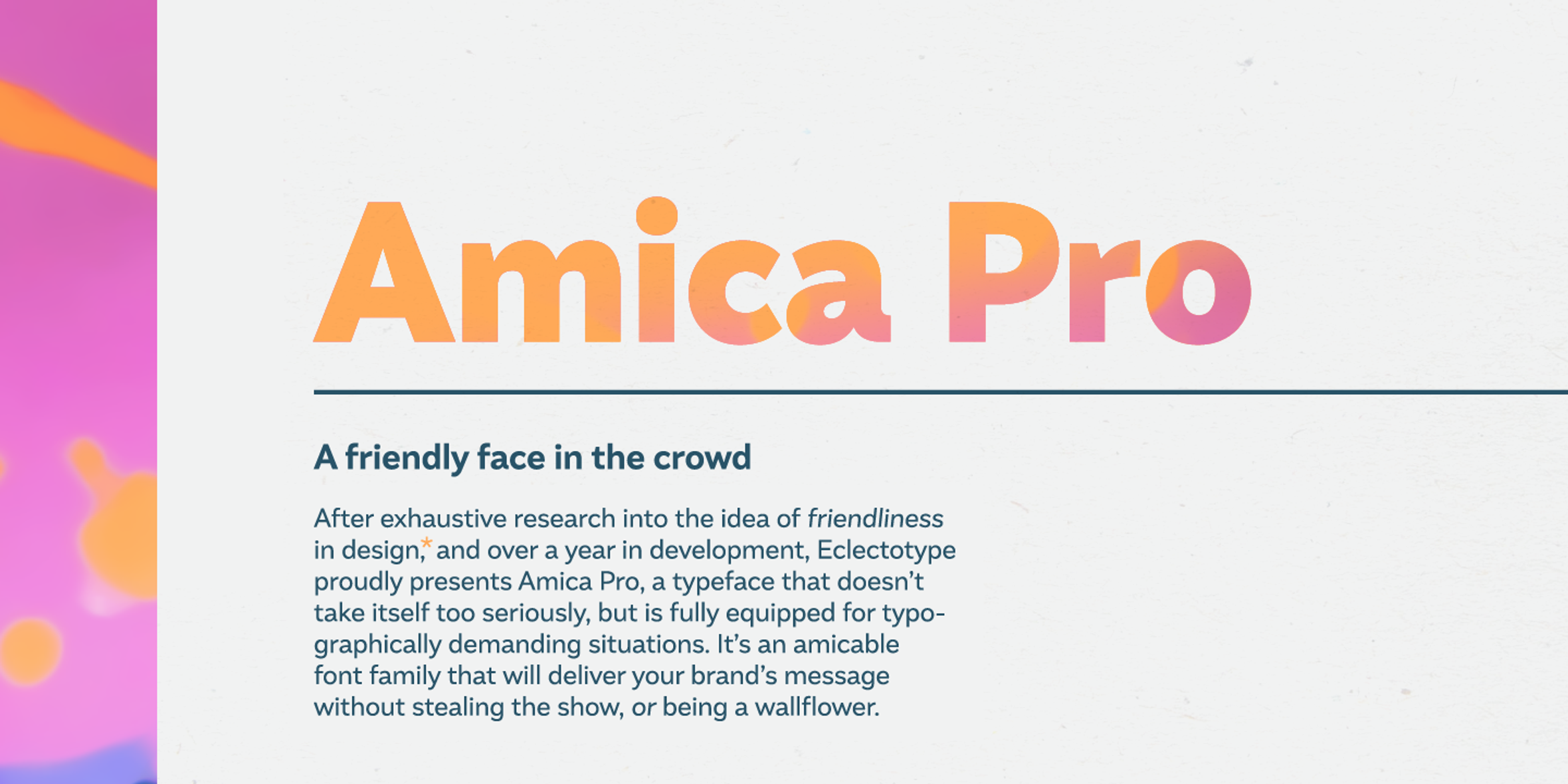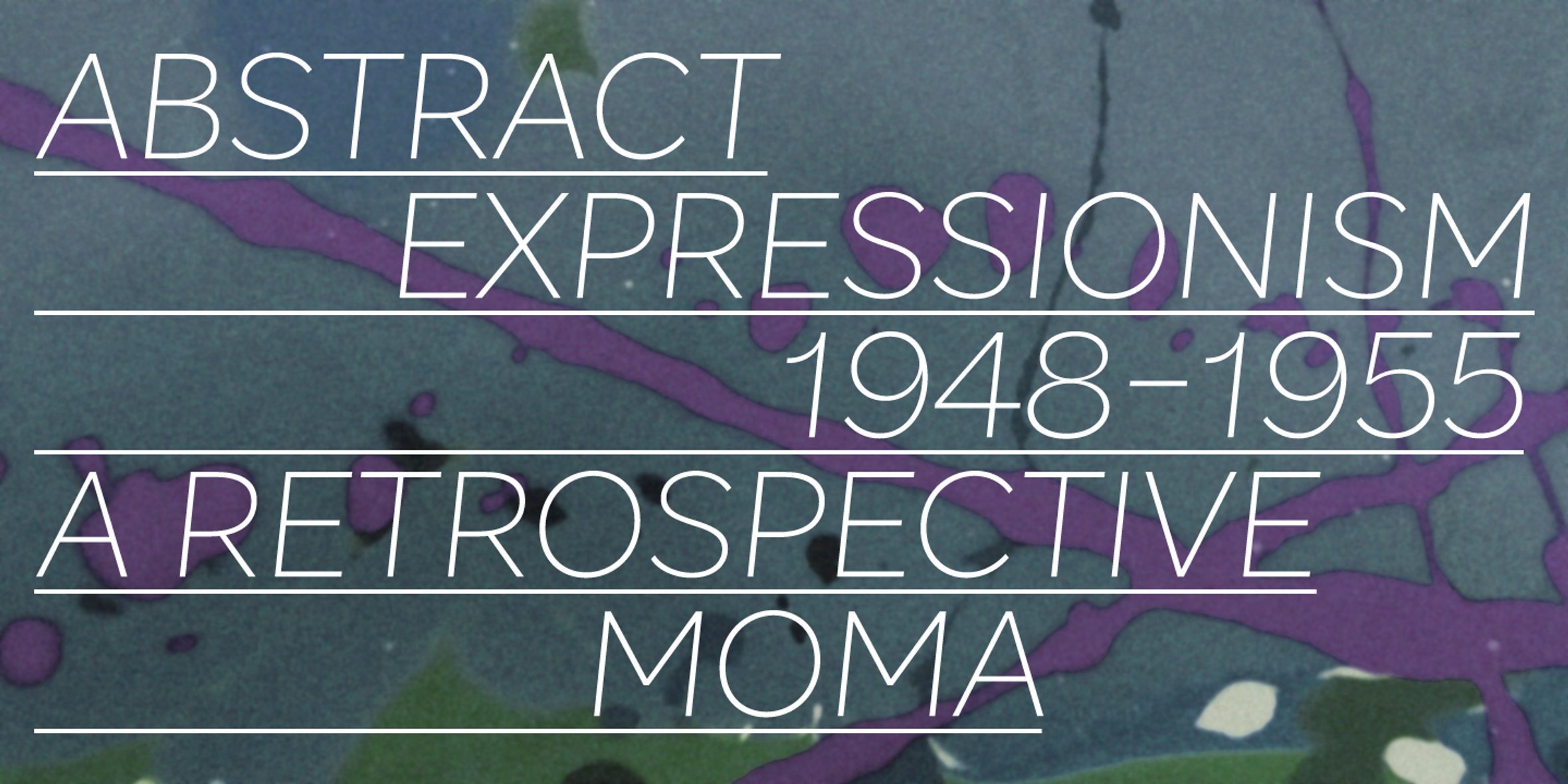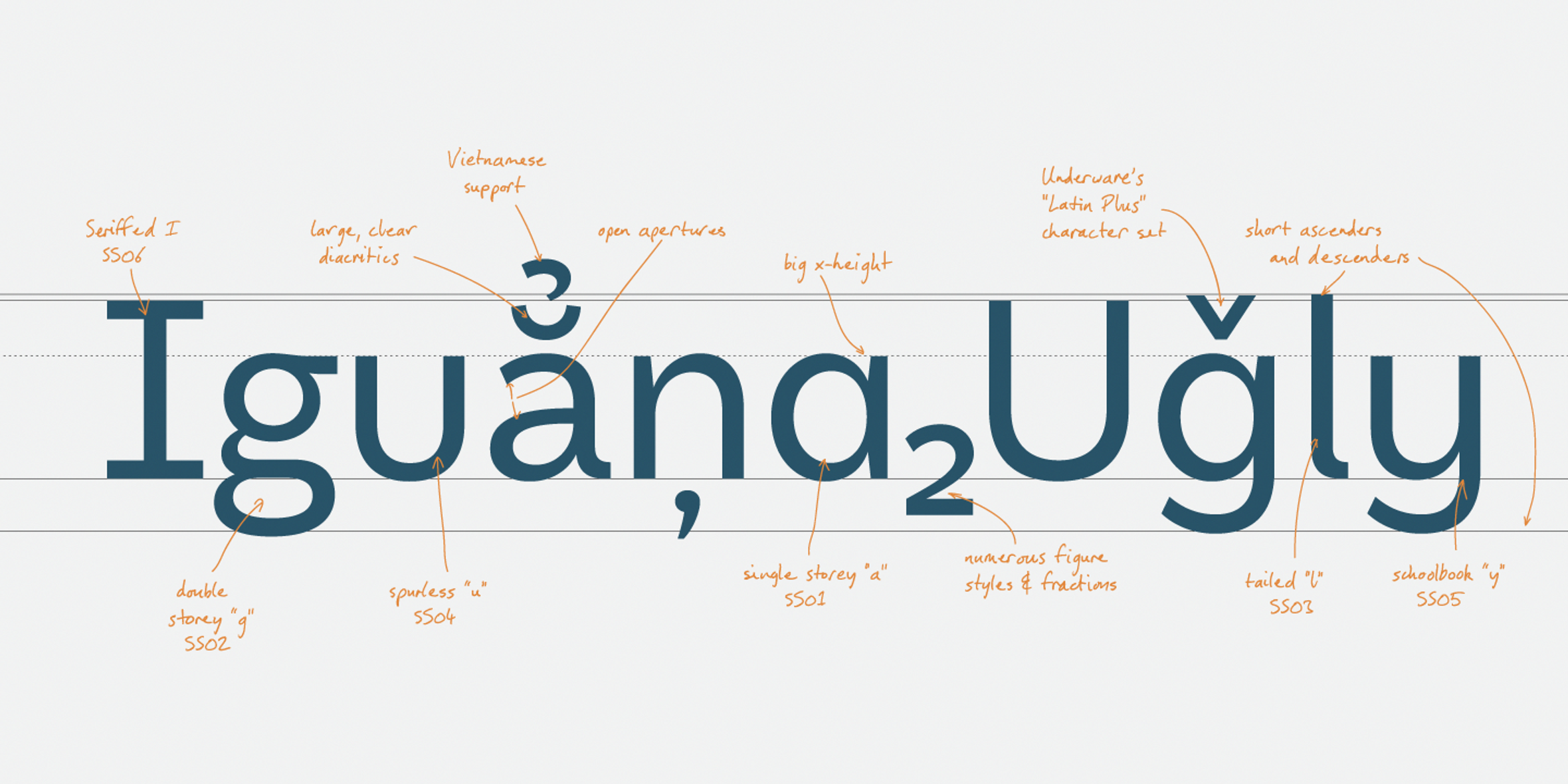
Amica
Amica is a workhorse sans serif family designed to give your branding, logos, and infographics a friendly, approachable look. What is it that makes a typeface friendly? To cut a long story short, friendliness in sans serif fonts can be summed up in two words — short and fat. Basically, think Danny DeVito in letter form: a rounder body, larger x-height, with shorter ascenders and descenders. Amica Pro contains 18 styles, including italics that are optically corrected “sloped Romans.”
- Vietnamese
- Fractions
- Old Style Numerals
- Ordinal Numerals
- Ornaments
- Subscript
- Superscript
- Tabular Numerals